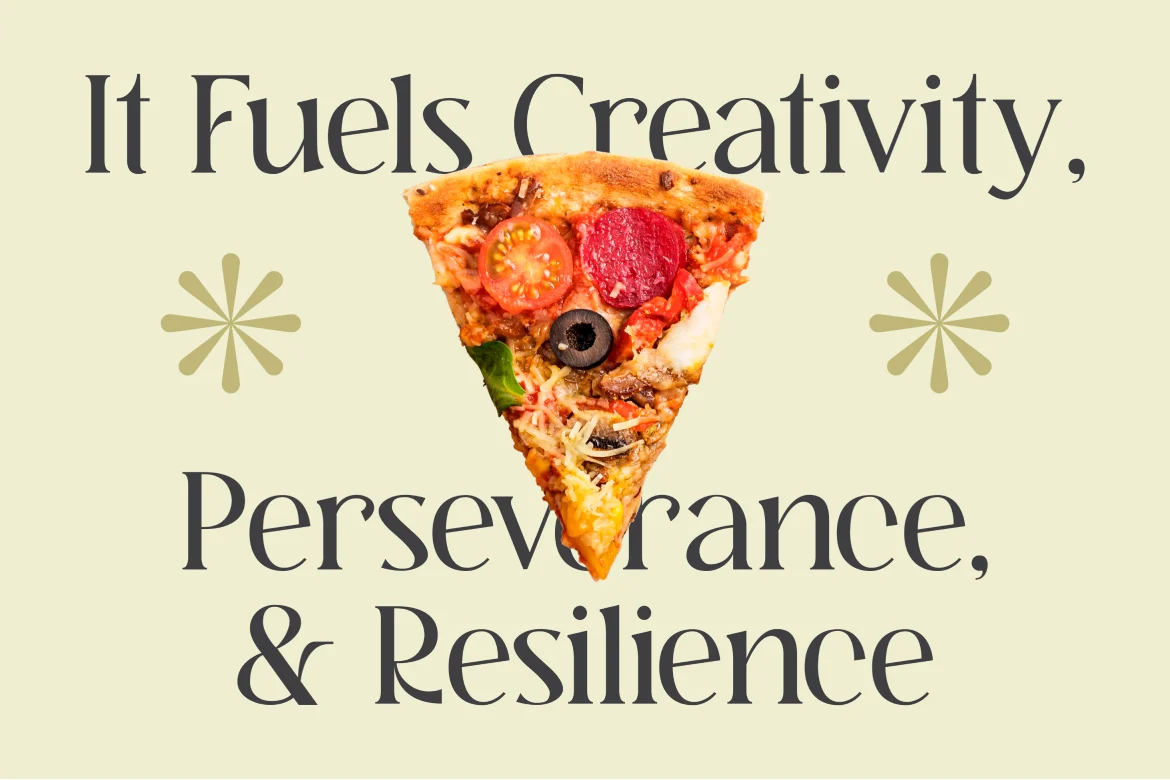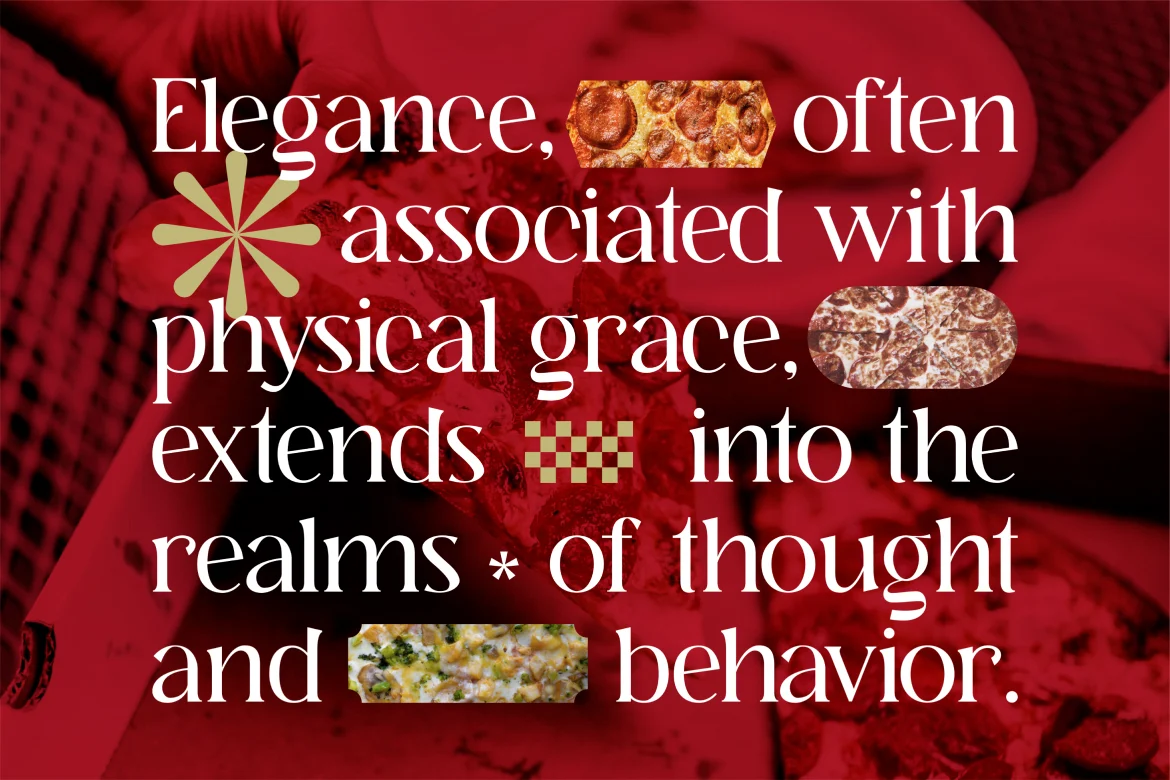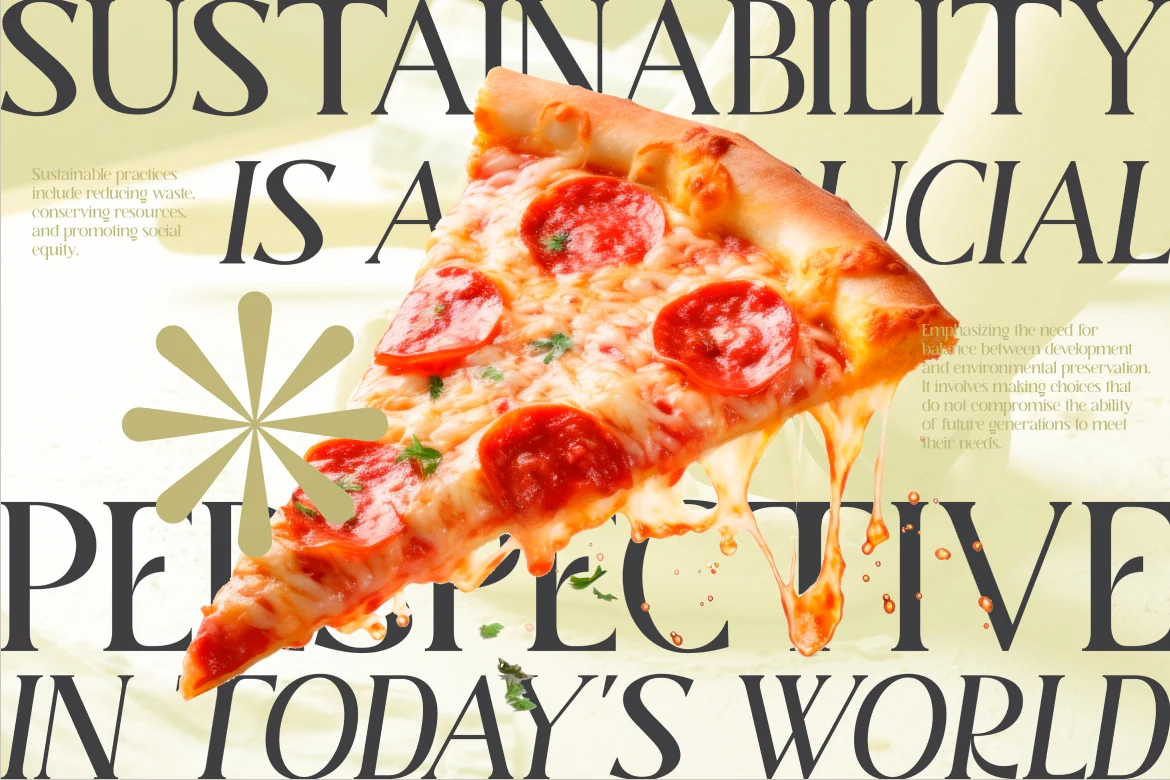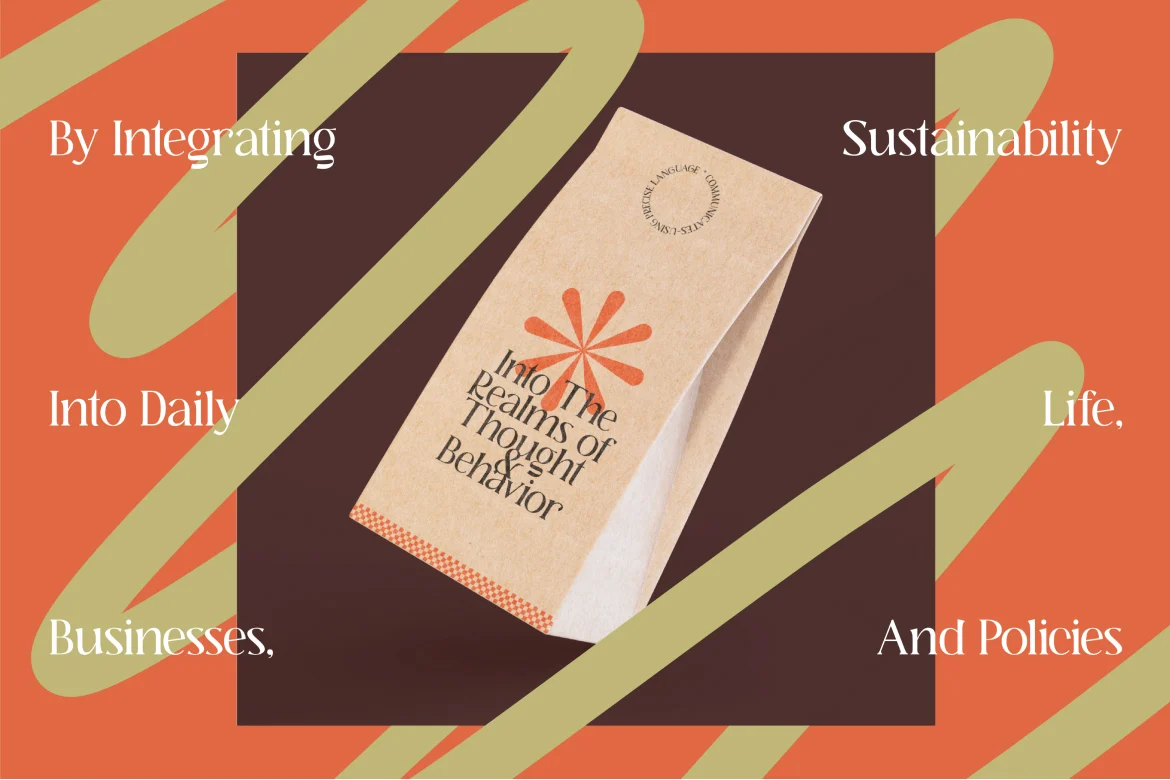
Ravige Luxury Serif Font
Ravige Luxury Serif Font typeface excellent used for the manufacture quote text, logotype, header magazine, and many more.
Main Features
- Ligatures & Alternate
- Numeral & Punctuations